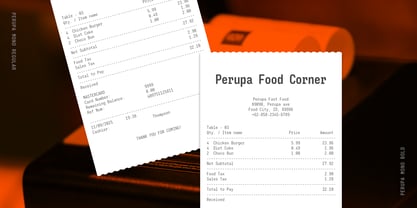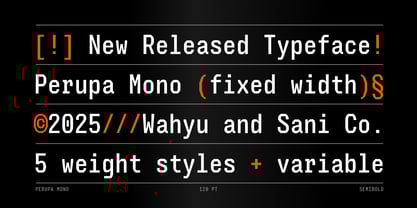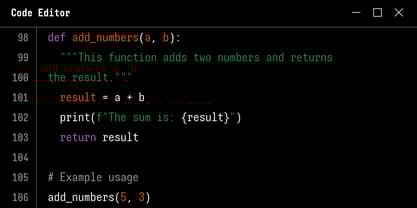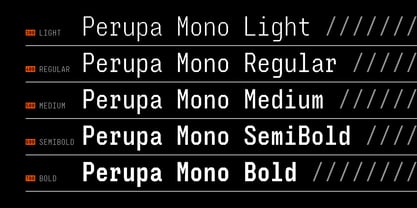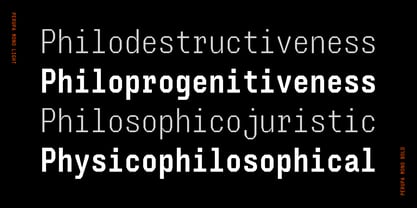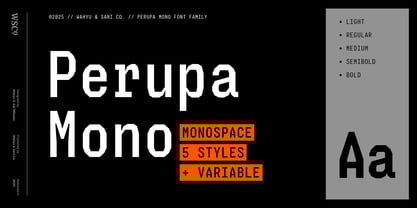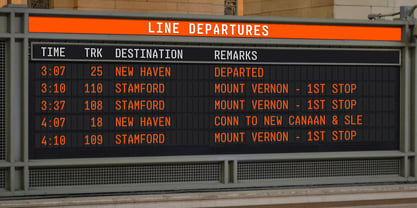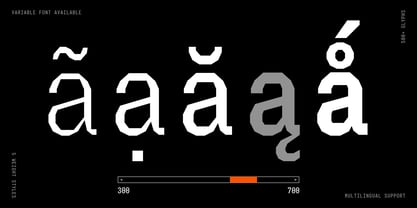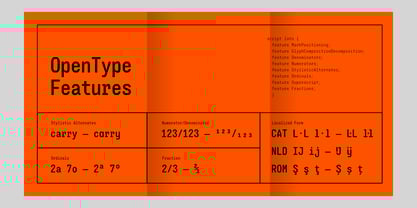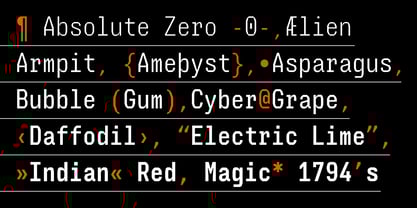
Perupa Mono
by Wahyu and Sani Co.
The Perupa Mono Font Family was designed by Wahyu Wibowo and published by Wahyu and Sani Co.. Perupa Mono contains 6 styles and family package options. More about this family
Perupa Mono is a cutting-edge polygonal monospace font family designed for precision and readability. Each character is carefully crafted to ensure optimum legibility. The sans serif design and fixed width ensure that Perupa Mono is perfect for coding, terminal use, and other applications where clarity is paramount. The font family comes is 5 predefined weight styles: Light: Thin and delicate, perfect for UI elements and subtle text, Regular: Our standard weight, ideal for body text and coding, Medium: A balanced weight, suitable for headings and emphasis, SemiBold: Strong and assertive, perfect for titles and highlights, Bold: Thick and commanding, ideal for headings and titles that demand attention. Perupa Mono's variable font allows you to fine-tune the weight to your exact needs, creating a bespoke font that perfectly suits your design. With infinite weight variations, you can achieve the perfect balance between readability and aesthetics. Perupa Mono is perfect for coding and development, terminal and command line interfaces, data visualization and dashboards, UI design and prototyping, dynamic digital signage and running text display, and any application where precision, readability, and consistency are crucial.